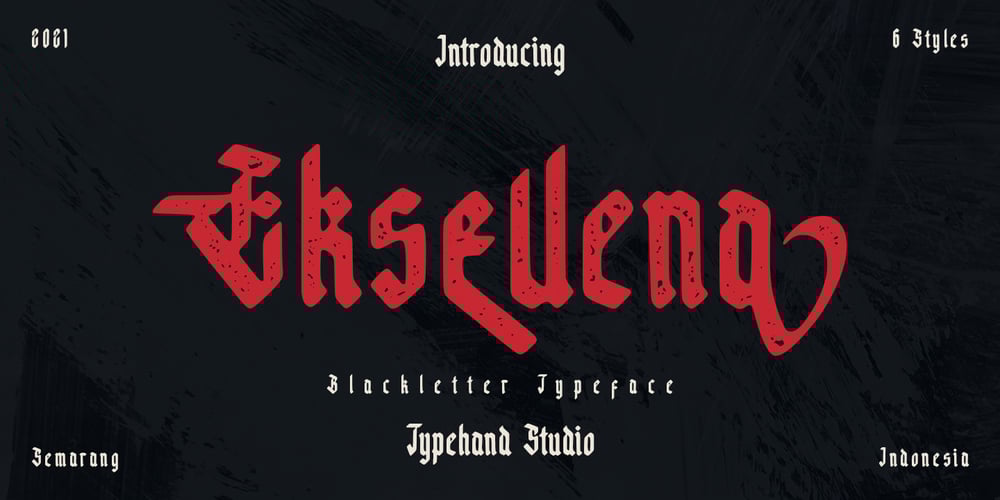
Eksellena
Eksellena font
Eksellena Font Family was designed by Yanuar Adi and published by Typehand Studio. Eksellena contains 6 styles and family package options. Eksellena is a blackletter font desiged in a modern style, minimalist and still classic look. this font is designed in 3 Style, each style have italic. That Style is Regular, Textured and Outline.Ekselllena creation idea was inspired by books, blackletter font and various feeds on instagram, This font is perfect for use as a poster design, branding, logos, apparel design, tattooo or other design needs.Eksellena modern blackletter font containing uppercase and lowercase, plus numerals and a full range of punctuation. There are alternate stylystic version and ligature. To access these, simply turn on ‘Stylistic Alternates’ or access them via a Glyphs panel.